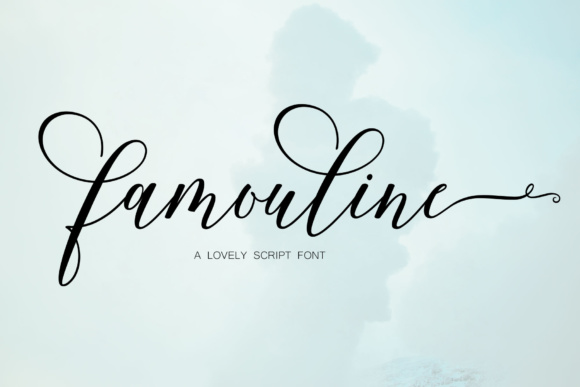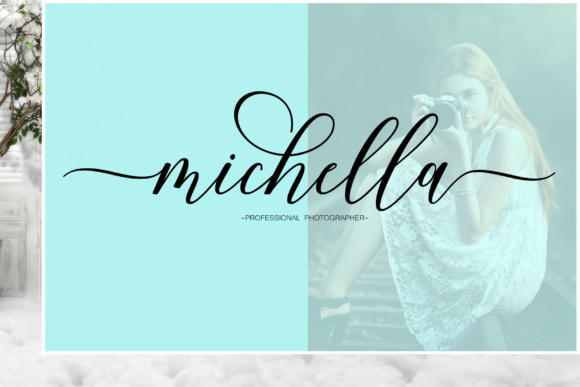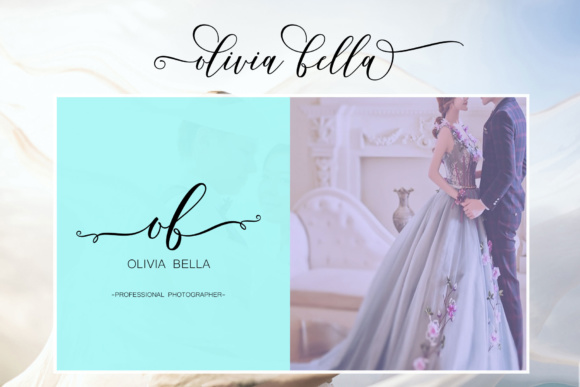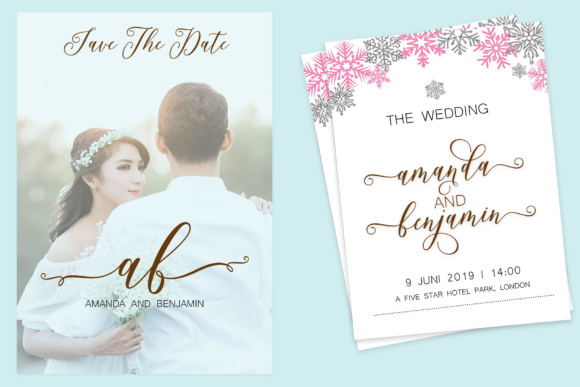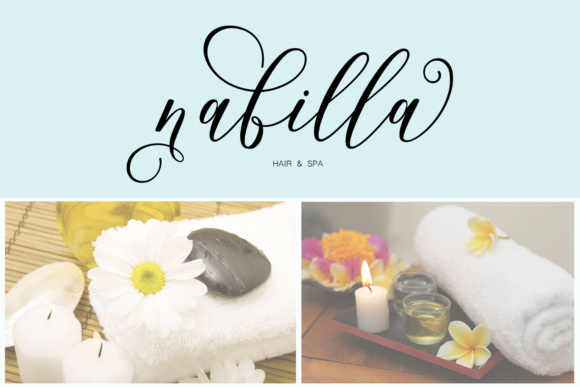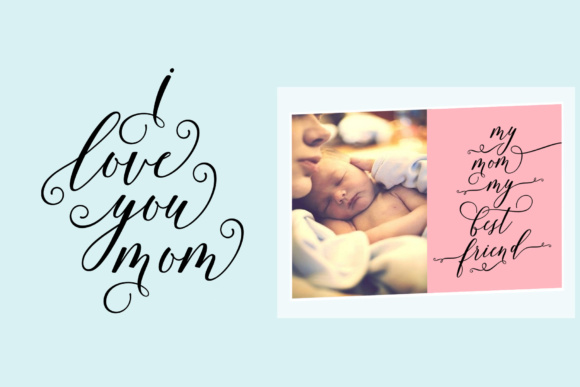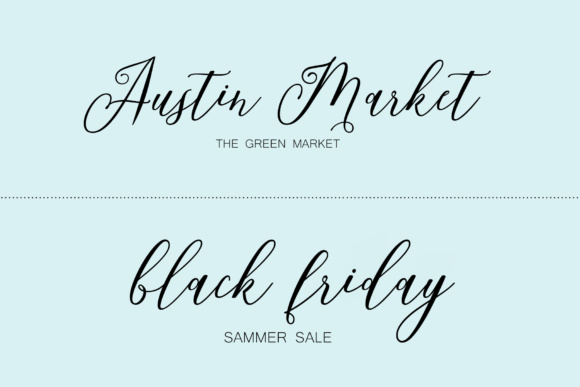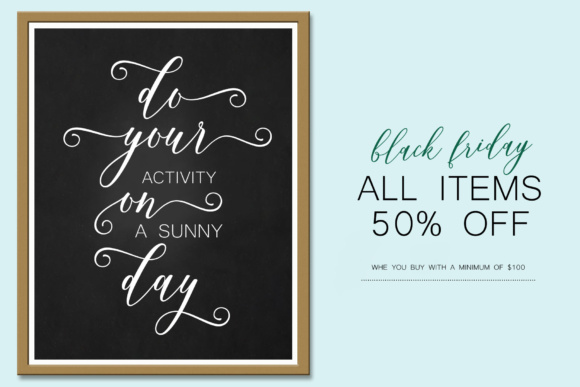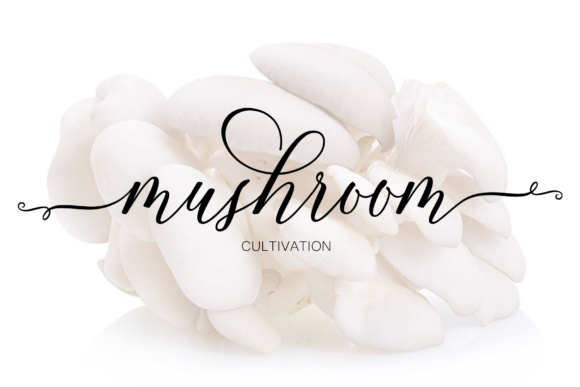
Famouline Script Font
About Famouline Script Font
Famouline Script offers you a beautiful typographic harmony for a variety of project designs. Famouline can be used for logos and branding, wedding designs, social media posts, advertising, product design and much more!